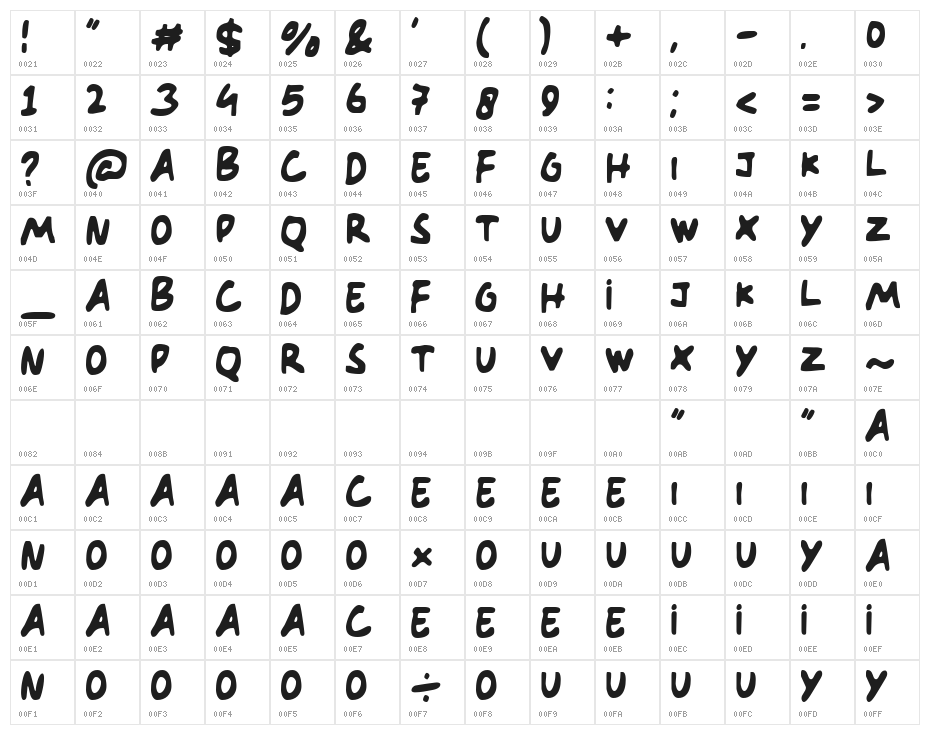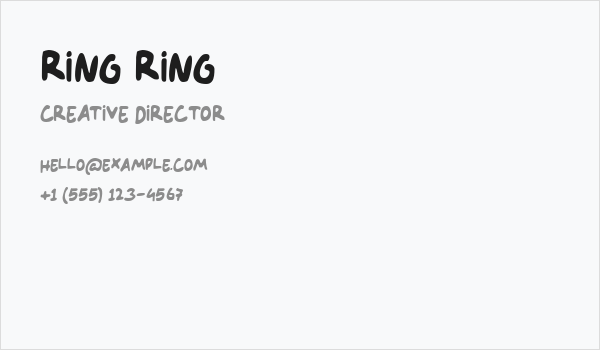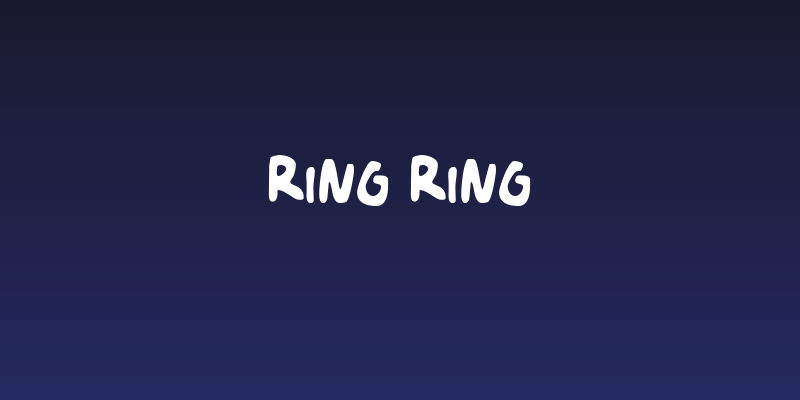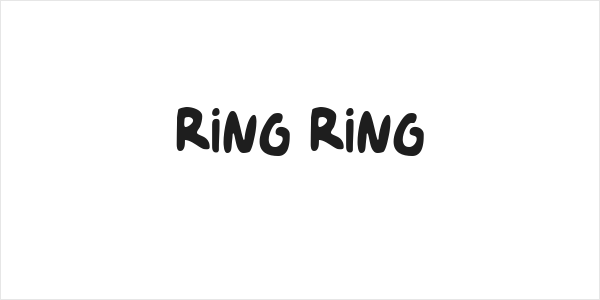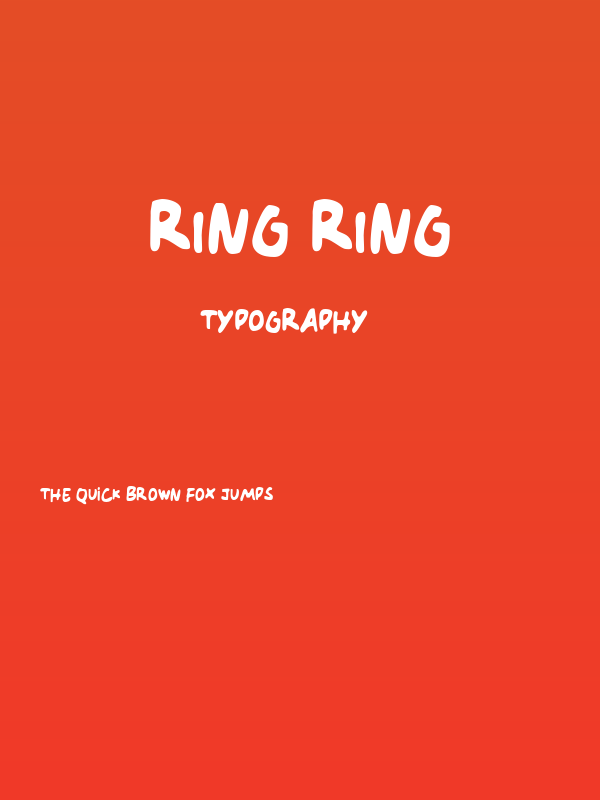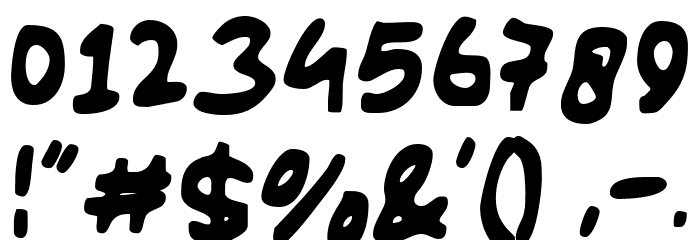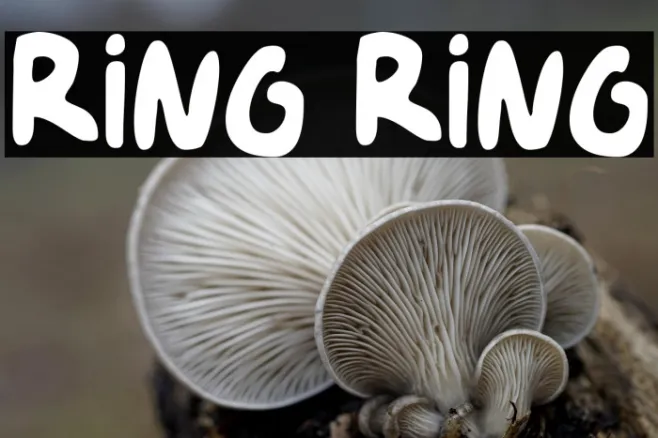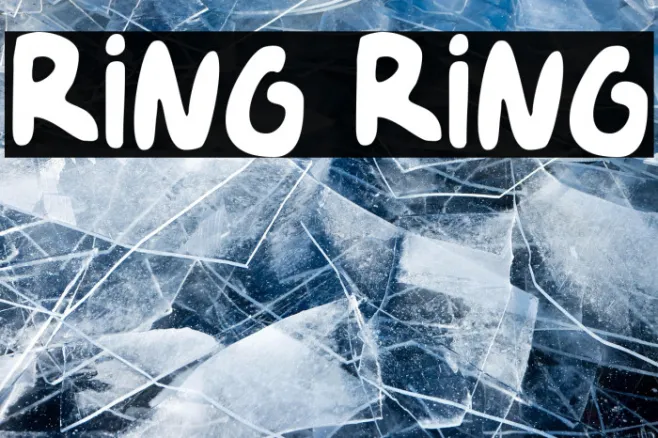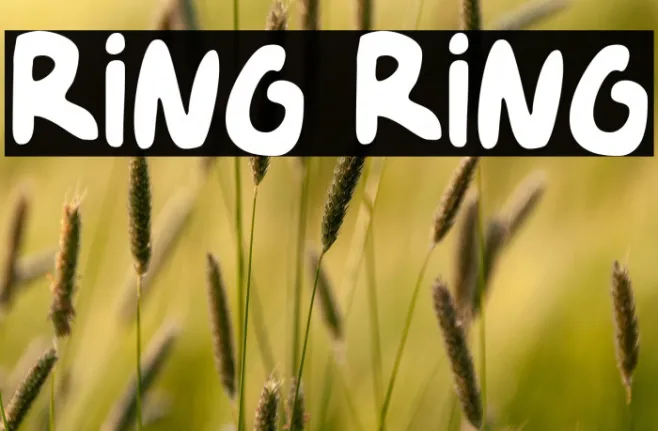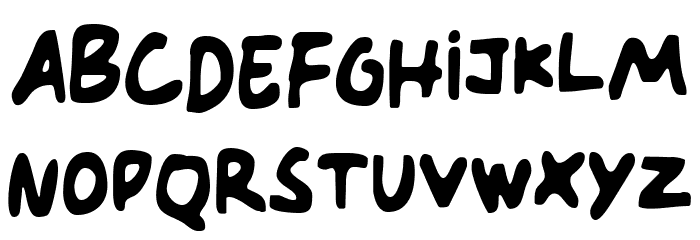
Ring Ring Font
Ring Ring Description
This font exhibits a playful and informal style, characterized by its bold and rounded letterforms. The strokes are thick and consistent, giving it a strong presence on the page. The letters have a slightly irregular shape, adding to its casual and hand-drawn appearance. The overall look is friendly and approachable, making it suitable for projects that require a touch of whimsy and creativity. The numbers and special characters maintain the same playful aesthetic, ensuring a cohesive look across all text elements.
| Proposed Projects | Ideal for children's books, comic strips, playful branding, and casual invitations. |